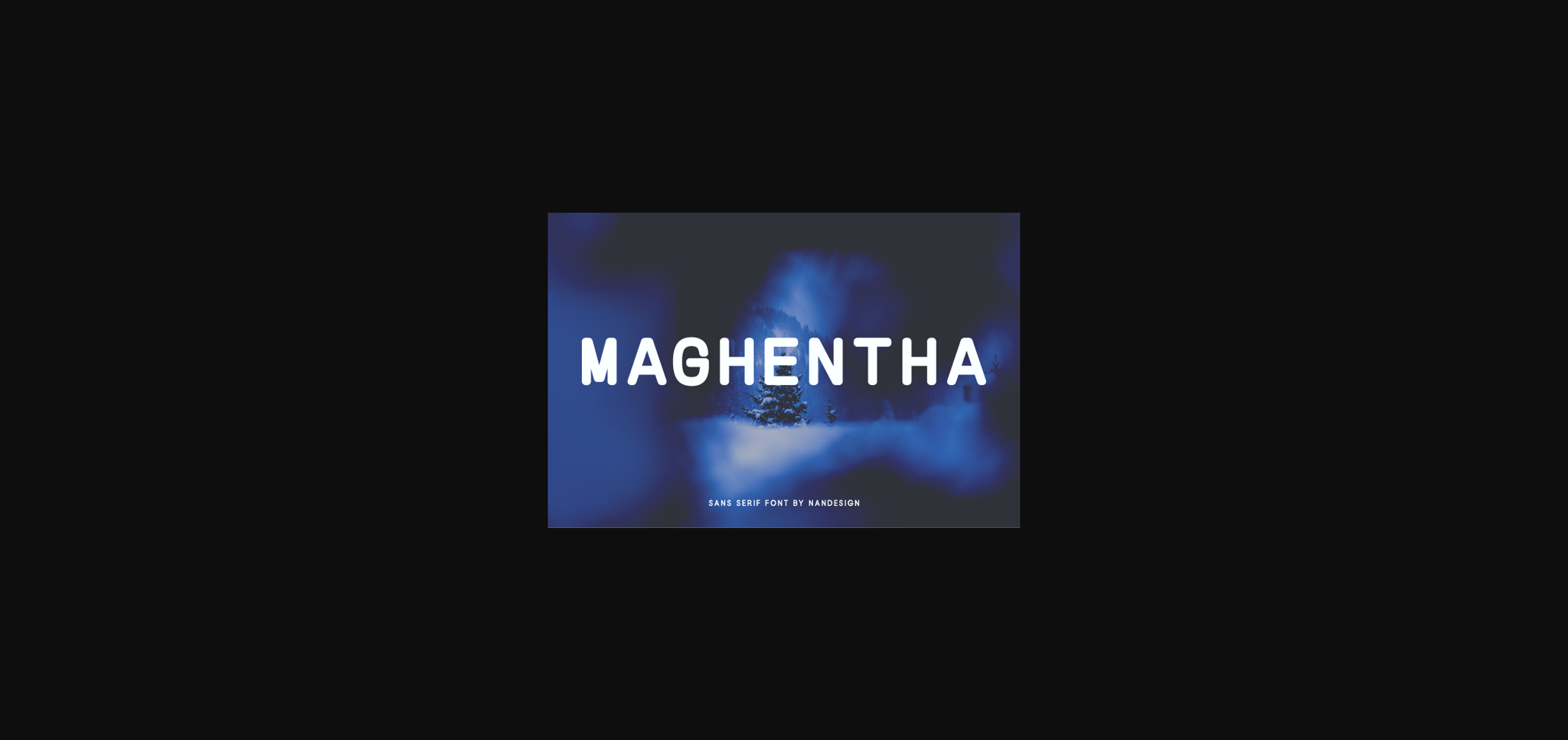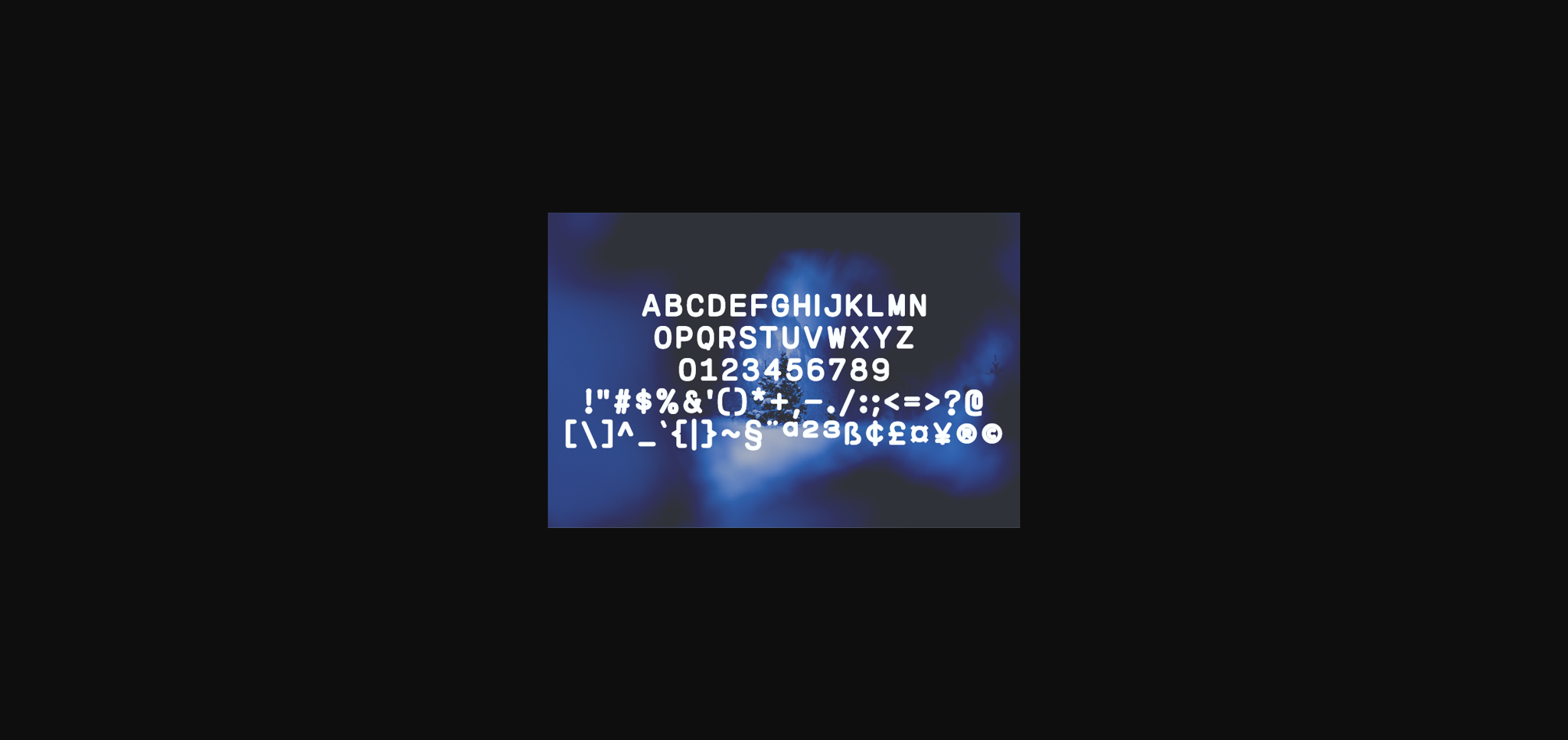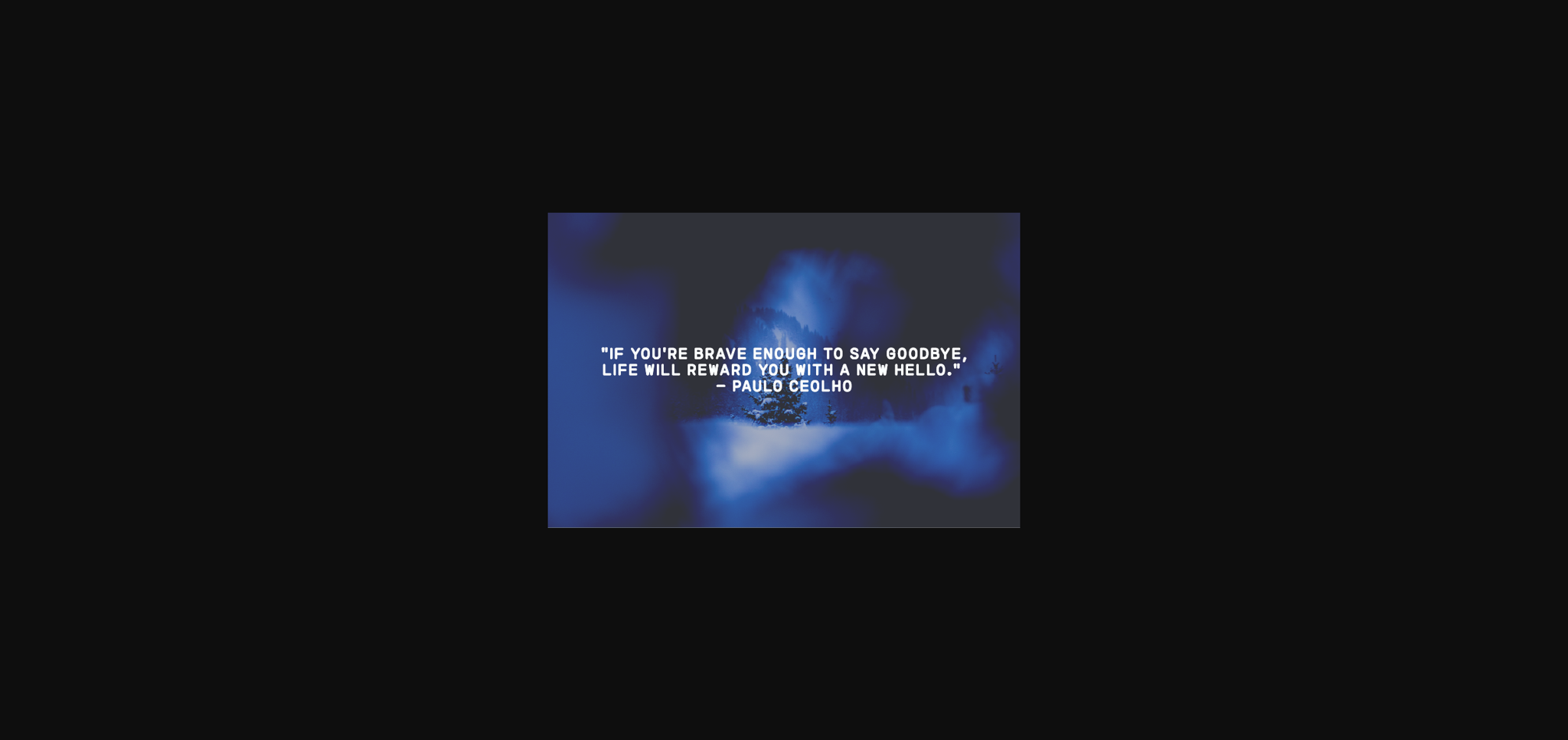
HomeSans Serif FontsMaghentha Font Sans Serif Fonts Maghentha Font FacebookXPinterestWhatsApp 1 of 5 ... Maghentha Font Poster 2... Maghentha Font Poster 3... Maghentha Font Poster 4... Maghentha Font Poster 5... About Maghentha Font Maghentha is a bold and simple lettered sans serif font. It is suitable for any branding, product packaging, invitation, quote, t-shirt, label, poster, logo that you wish to develop. DOWNLOAD NOW People also explored Plenty Bounty Font Demography Font Designer Font Shadow Box Font Sister Font Family Garden Font Fresh Fruit Font Shine Star Font Dambera Font 301 0 TagsMaghentha Font Previous articleStephinest FontNext articleCoredane Font LEAVE A REPLY Cancel reply Comment: Please enter your comment! Name:* Please enter your name here Email:* You have entered an incorrect email address! Please enter your email address here Website: Save my name, email, and website in this browser for the next time I comment. Personal Use Free Covelia Personal Use Free Read more about this font Creativo Personal Use Free Read more about this font Proudly Personal Use Free Read more about this font Hollow Personal Use Free Read more about this font BLOG 5 Fonts That Will Dominate Design Trends in 2026 5 Fonts for 2026 That Will Dominate Design Trends Typography plays a critical role in visual communication, and as we look ahead to 2026, it’s... Transform Your Website: Elevate Your Typography with 7 Best Web Font Generators Top 7 Google Fonts Alternatives for Faster and Privacy-Friendly Web Design (2025) Where to Buy American Fonts Online in 2024